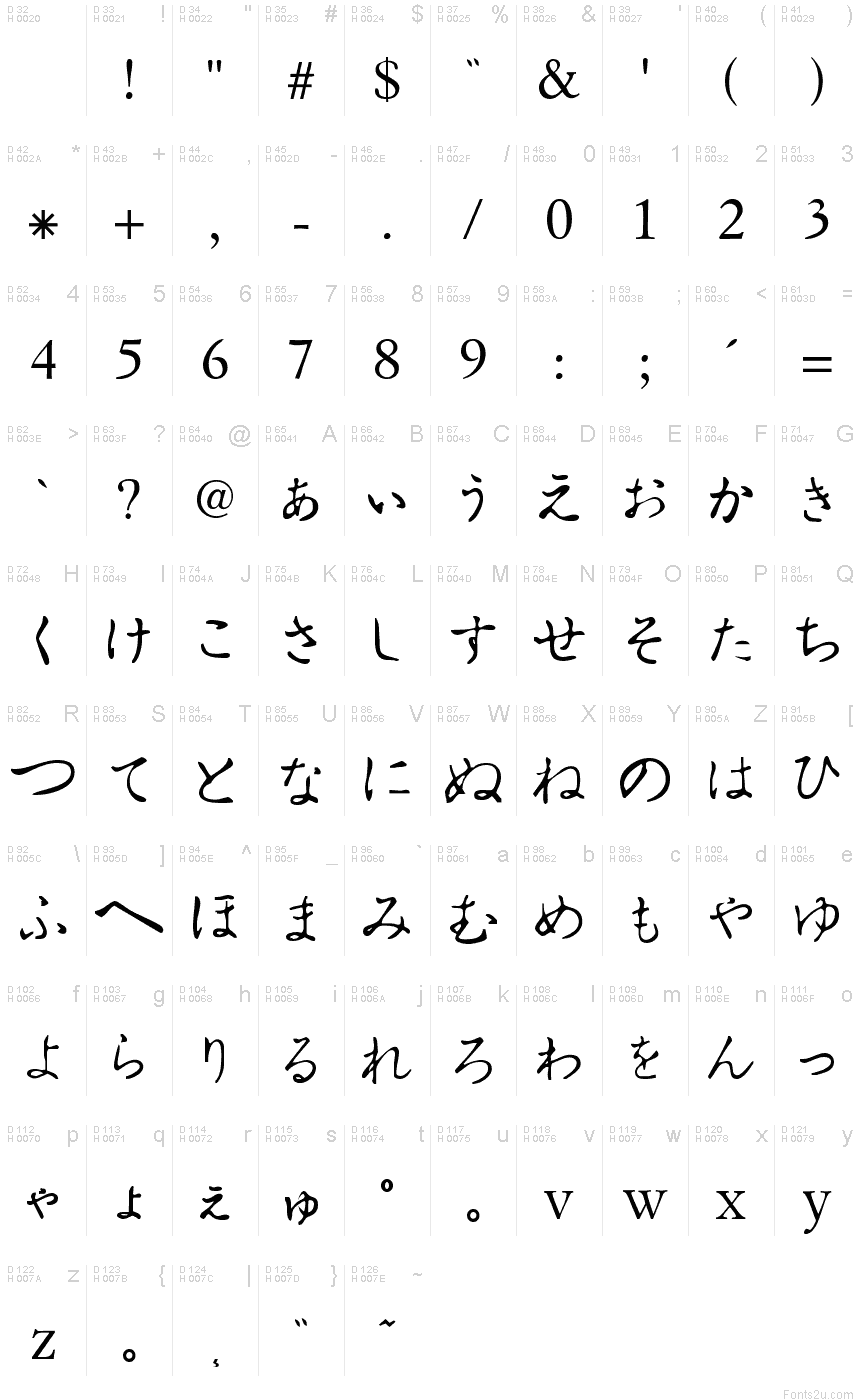
Hiragana font by M. Bujardet is a free Japanese script typeface that captures the loose, inky swing of quick handwriting. The strokes feel slightly uneven and organic, as if drawn with a soft brush pen on textured paper, giving every word a friendly, human warmth. Letters flow into each other with an easy rhythm, so even short phrases feel like little handwritten notes rather than cold digital text.
Using Hiragana, you can bring a casual, approachable mood to language-learning worksheets, kids’ posters, kawaii branding, ramen or sushi menus, greeting cards, and social media graphics. This free font shines when set a bit larger, where its subtle wiggles and tapering strokes can breathe. For bilingual layouts, try pairing Hiragana with a clean geometric sans serif in Latin characters to keep things legible while letting the Japanese script carry the personality.